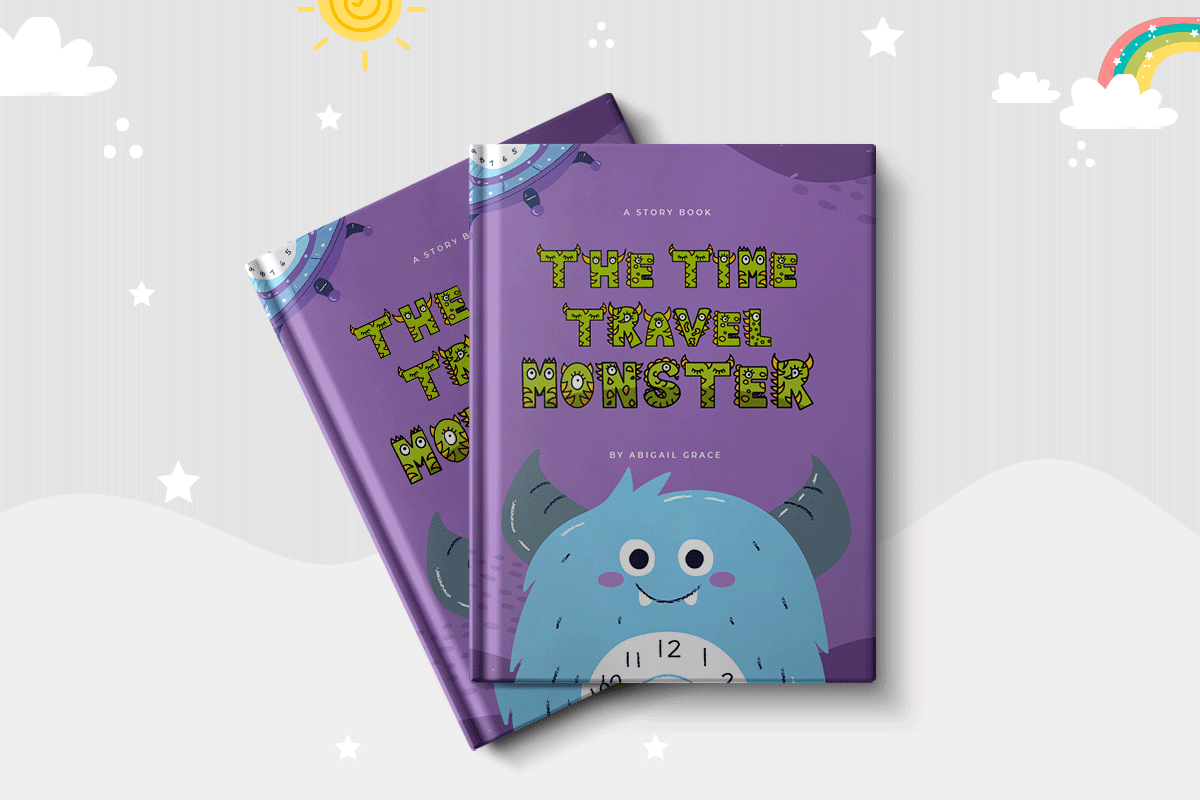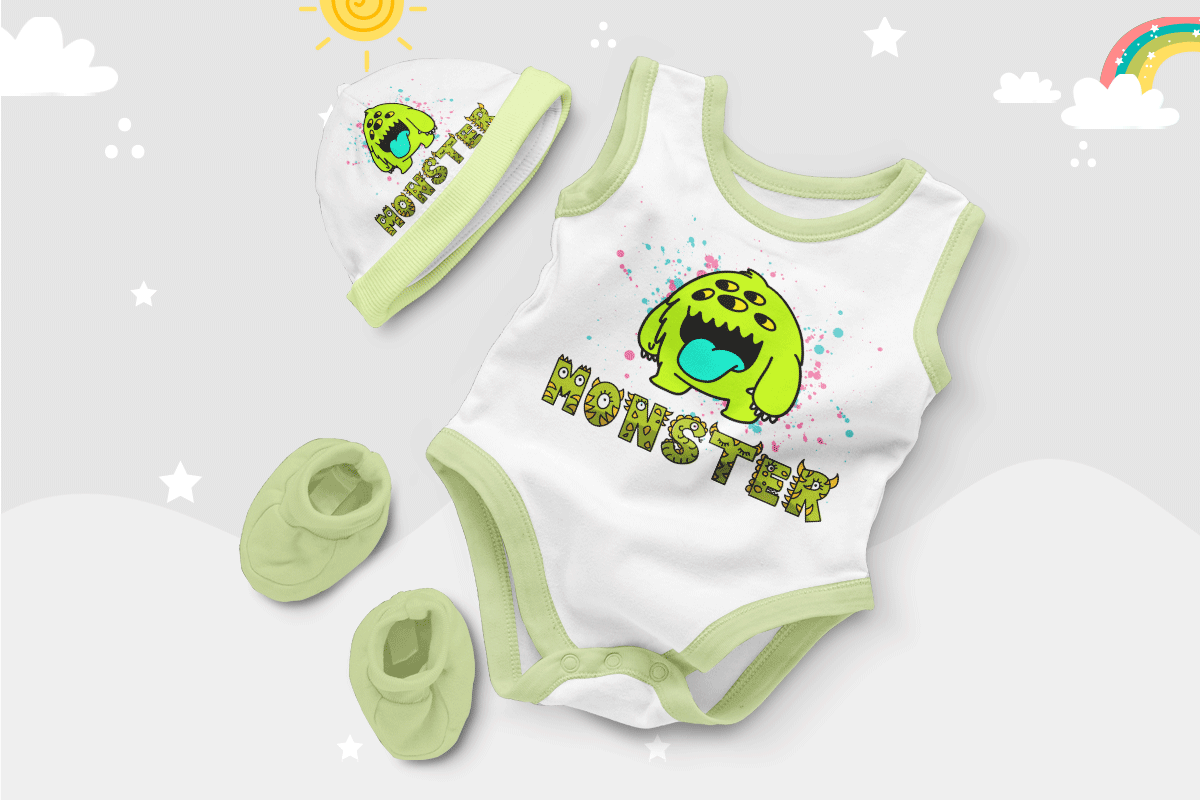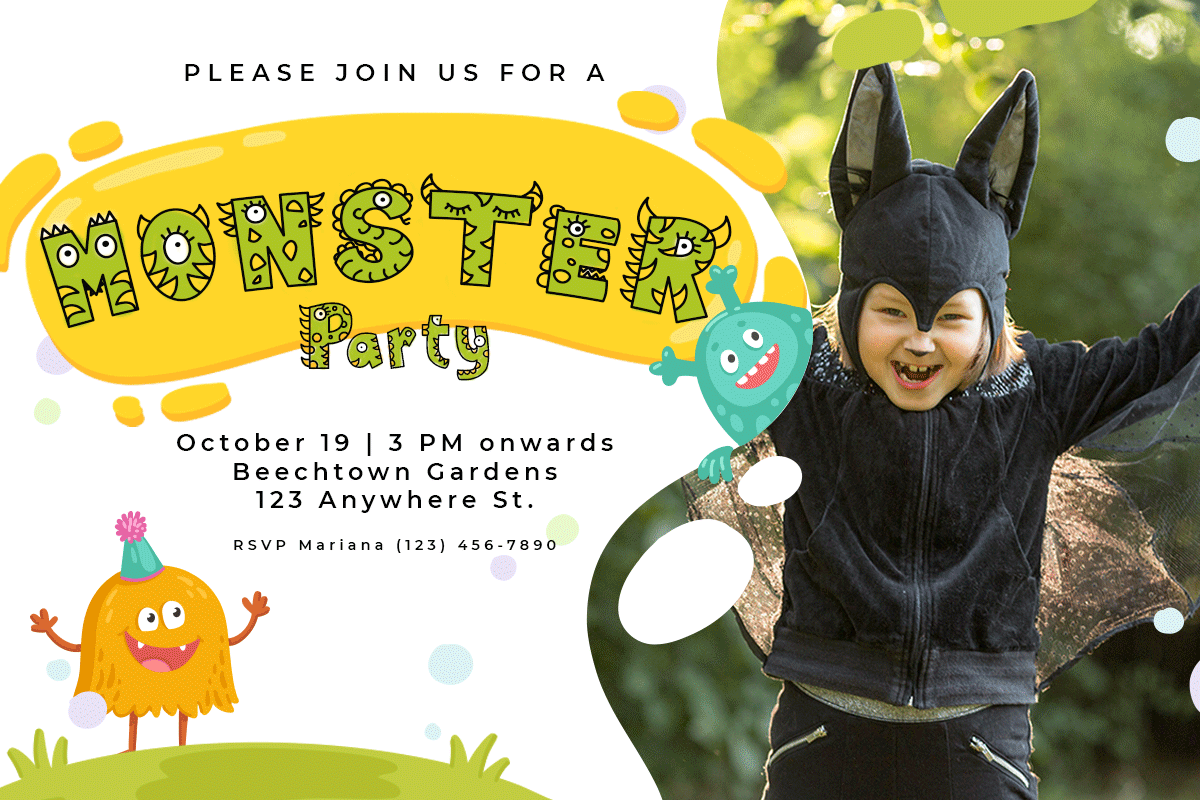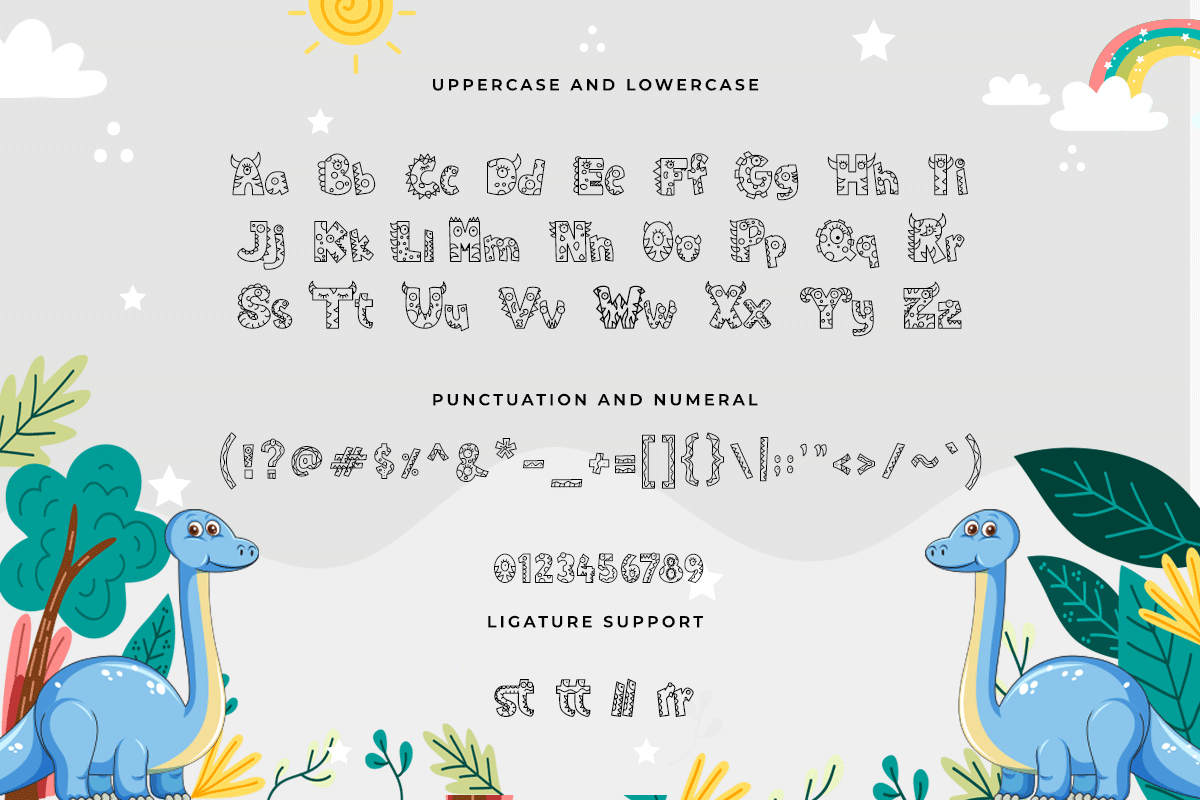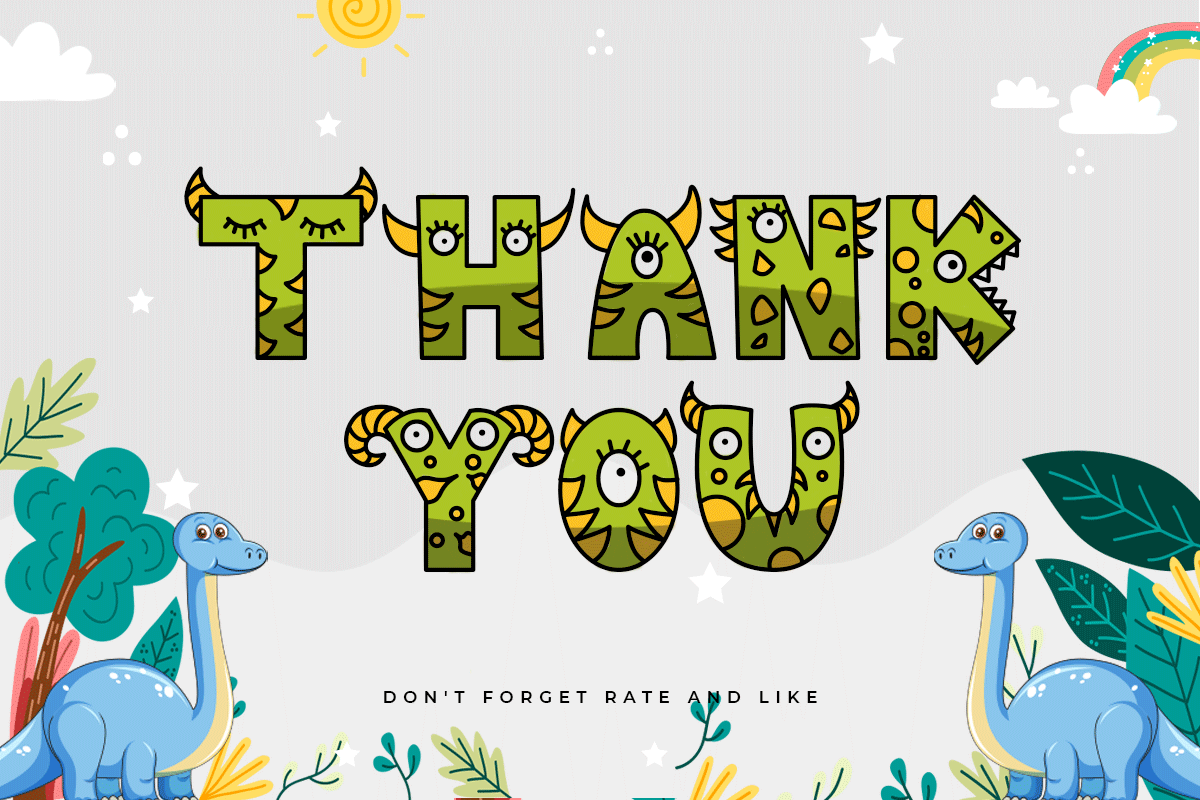
Monsterazor Cute Decorative Font is a uniquely blended typeface concept. Decorated with horns, teeth, and funny-looking cartoony eyes, this monster-inspired typeface is indeed very suitable for all kinds of children's activities. The scary, yet friendly expression of this particular typeface will leave such a memorable impression on the children's minds. You can use this monster-looking font for all kinds of printing purposes, such as on school supplies, bags, pencil cases, story books, study books, and decorations on school walls. If placed on various items, the fun and eye-catching design of this typeface will attract the attention of the children almost instantly. Therefore, it is best to use this typeface on any products that are targeted at children. The cute Monsterazor font can also be used effectively in the digital world. This font is also suitable for individuals and companies who want to make games for children, or for those who want to produce a film or video streaming service for young audiences. Our collection of display fonts and compatible to use as Figma fonts, Canva fonts, Freepik Fonts, and Adobe Fonts. They also work as Windows Fonts, and Apple Fonts. For your social media needs, you can use and install fonts in our collection of display and decorative typefaces to use as Instagram Fonts, Facebook Fonts, and Twitter Fonts.